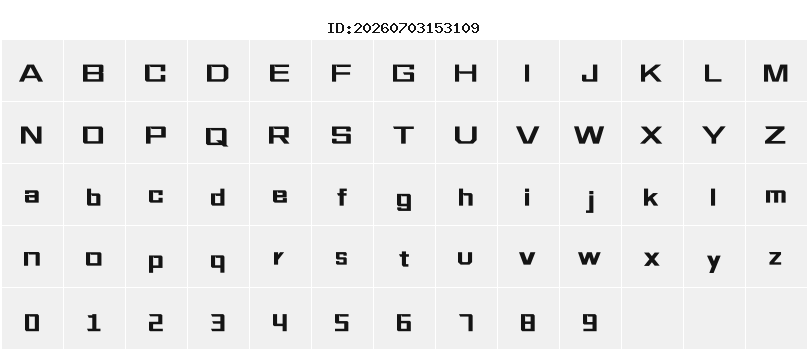
017-上首钝黑体 Preview
• Manufacturer: 上首造字
About 017-上首钝黑体.ttf
017-上首钝黑体.ttf is a modern, elegant sans-serif font designed for ultimate readability and visual harmony. Perfect for branding, headlines, web design, and print materials.